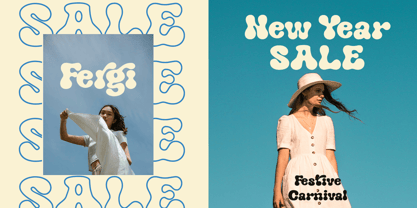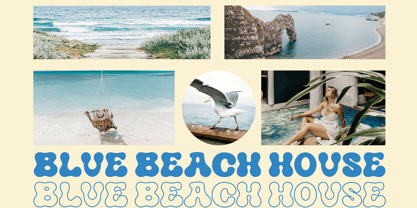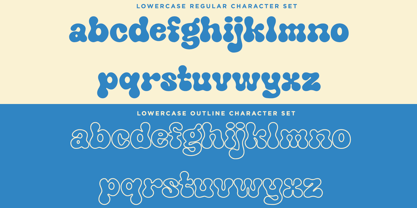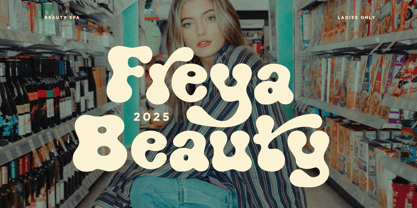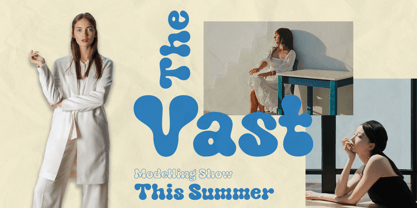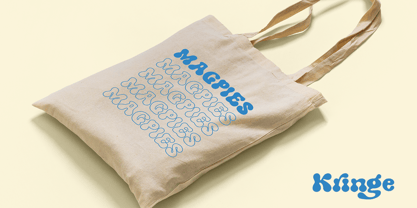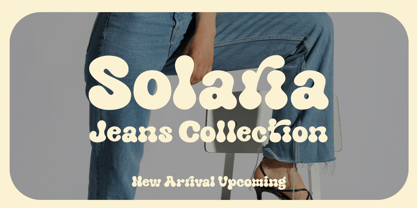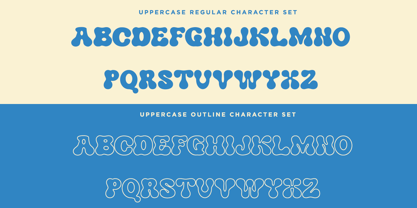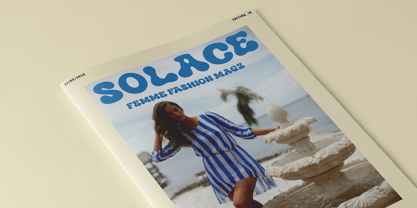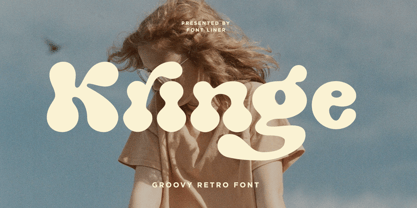
Kringe
by Font Liner
The Kringe Font Family was designed by Ghina Luthfiarieska and published by Font Liner. Kringe contains 2 styles and family package options. More about this family
Kringe a groovy retro font that combines bold and rounded shapes. Bold and playful, this font captures the nostalgic charm of the past with a contemporary twist. This font is perfect for retro designs, svg designs, t-shirts, mugs, stickers, procreate, logos, and more! Get ready to make a lasting impression with Kringe.
Designers: Ghina Luthfiarieska
Foundry: Font Liner